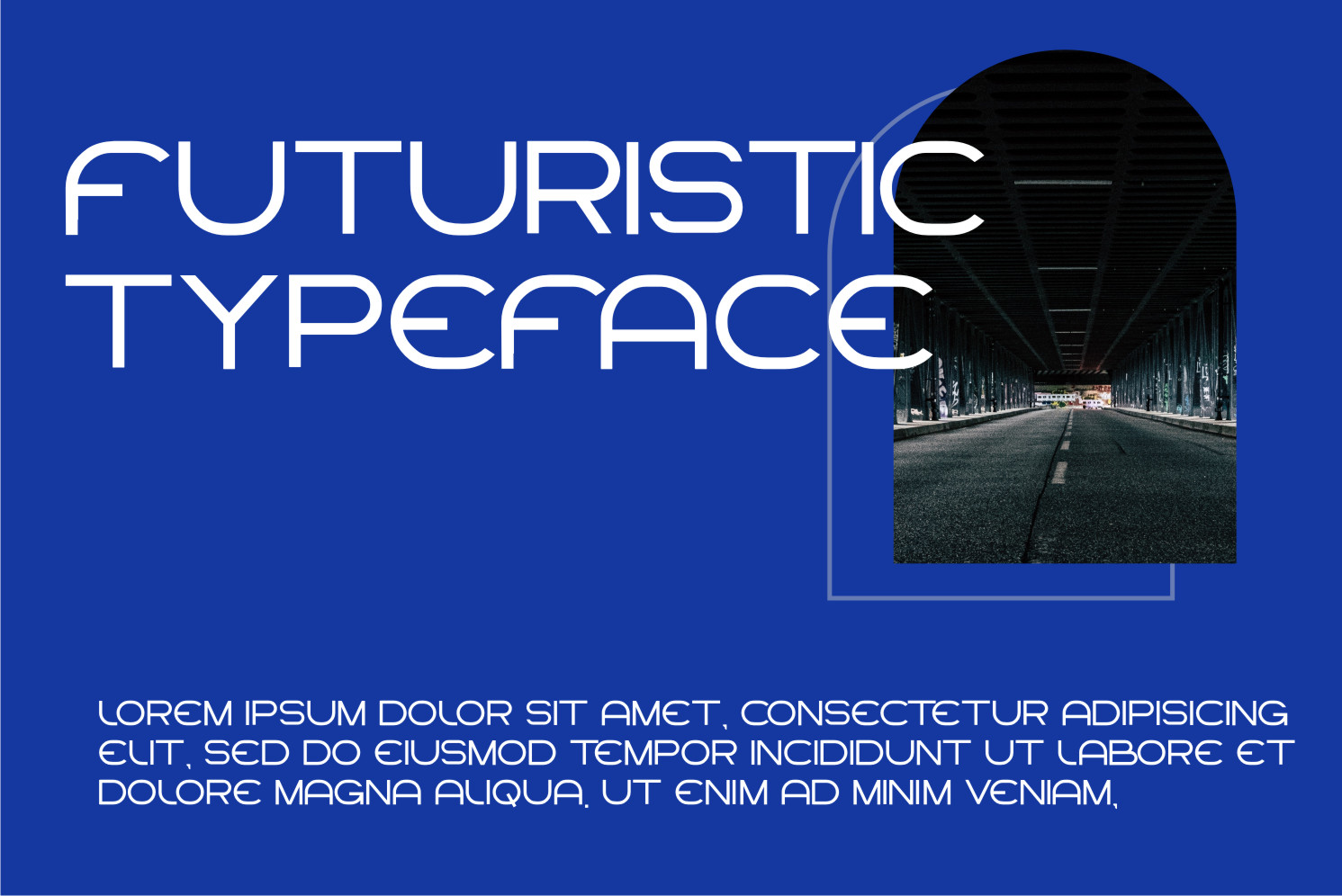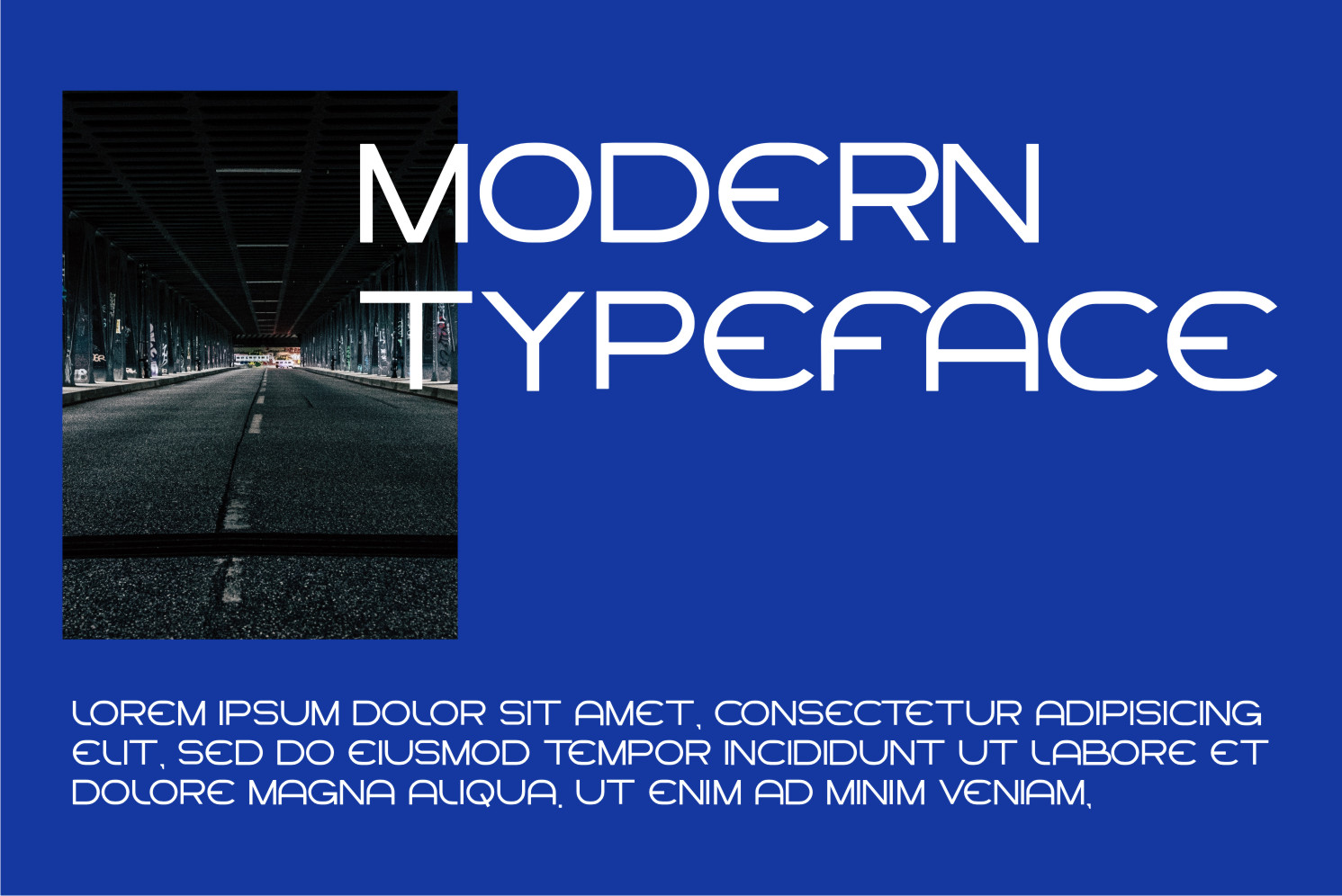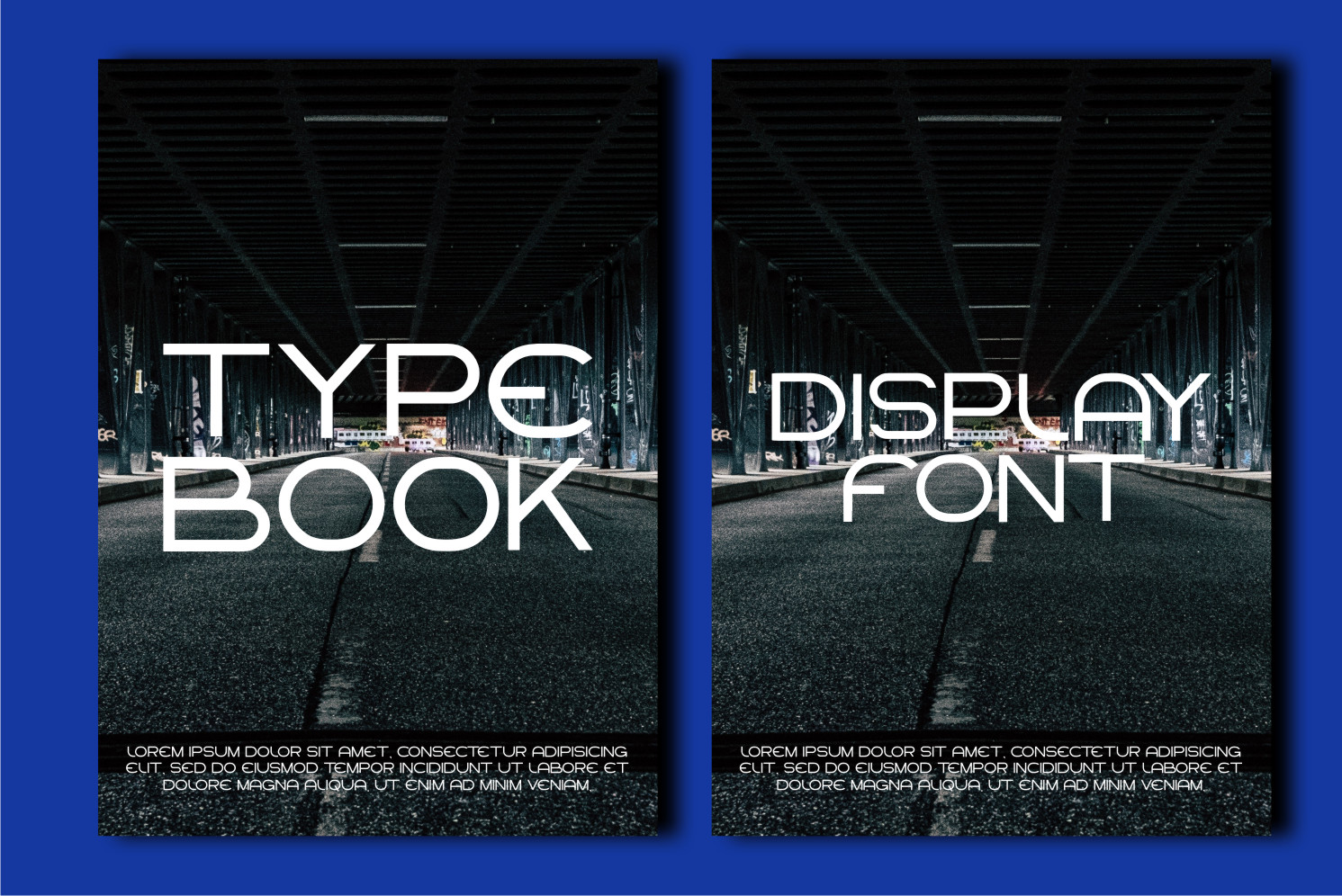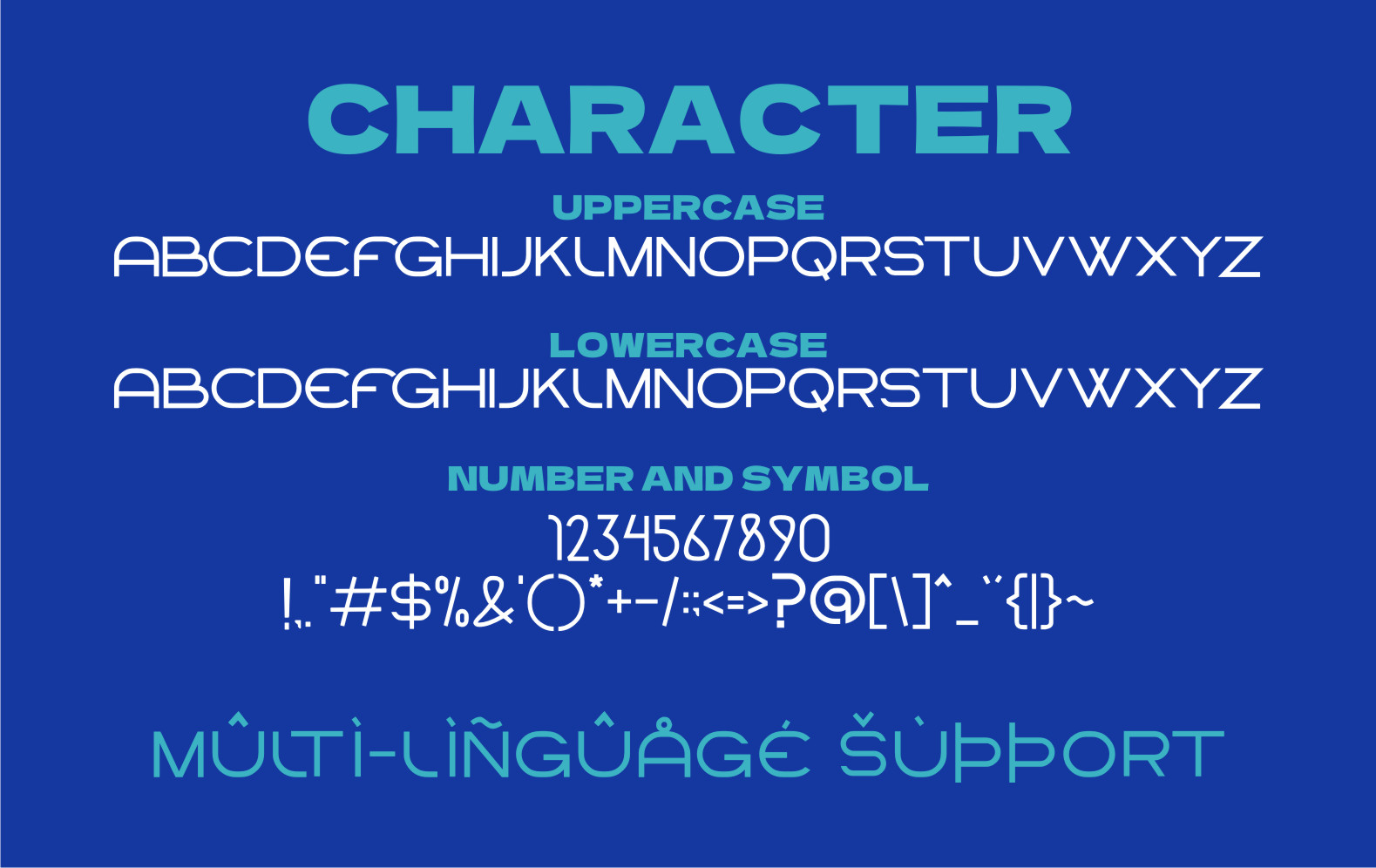
Bhasur Font
Bhasur Sans Serif Font
It’s a modern and cool display font. This font is ideal for writing web designs, business cards, or pretty much anything else that requires a unique touch.